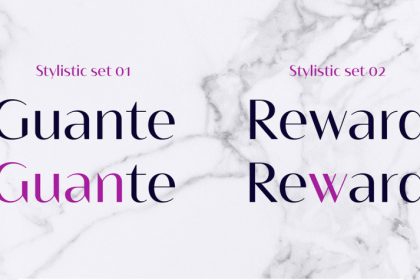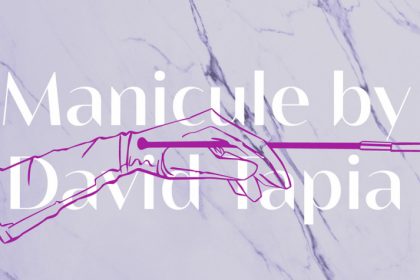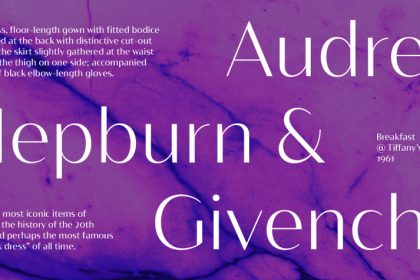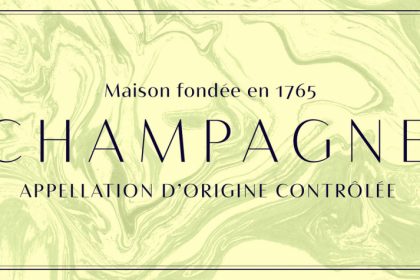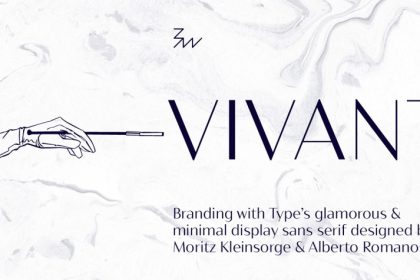
Bw Vivant Font Family
Bw Vivant Font Family – Free Demo
I am very happy that lucky to be introduced to you a great fonts family. This is a family of fonts with 7 professional fonts. Introducing Bw Vivant display font! Designed by Moritz Kleinsorge & Alberto Romanos, Bw Vivant is a glamorous sans serif font family. It marries the visual appeal of deeply modulated serif typefaces with a minimal geometric approach, discarding any accessory element on the hunt for the cleanest shapes. The result is a high contrast sans serif exuding elegance and glamour across every touchpoint, with subtle art-deco and classic cues coming through while feeling contemporary. Available in 7 weights with the “thins” staying constant throughout, Bw Vivant supports all European Latin languages and it includes OpenType features like many discretionary ligatures, stylistic sets, old style figures or case sensitive forms among others.